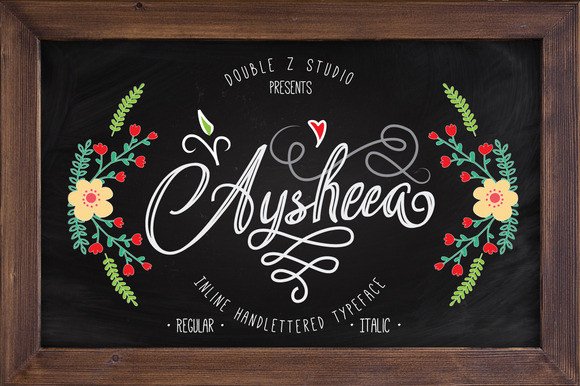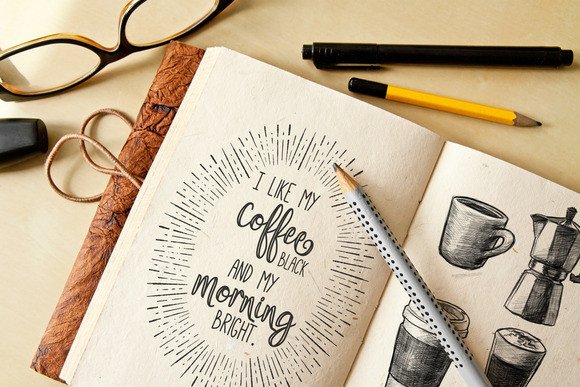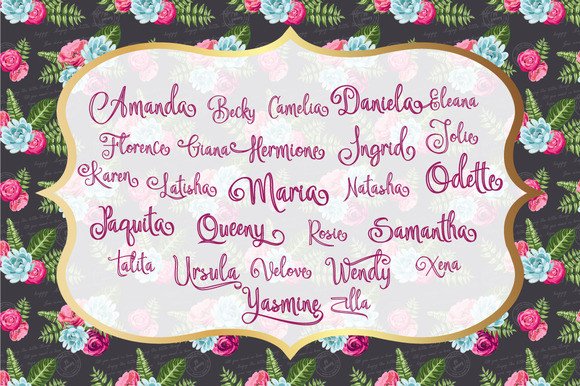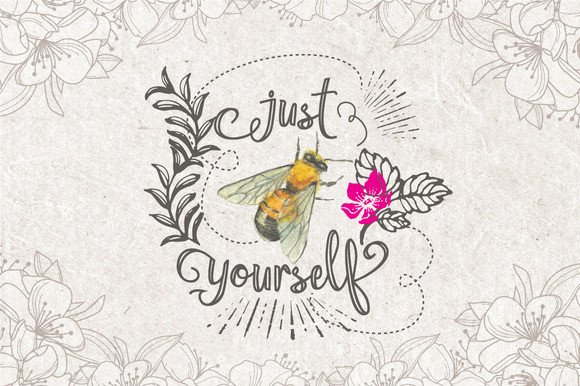
Aysheea Font
About Aysheea Font
Aysheea is a stunning script font.  This font has both traditional calligraphy appeal, but takes from modern approaches for a truly unique script font that can enhance any design.